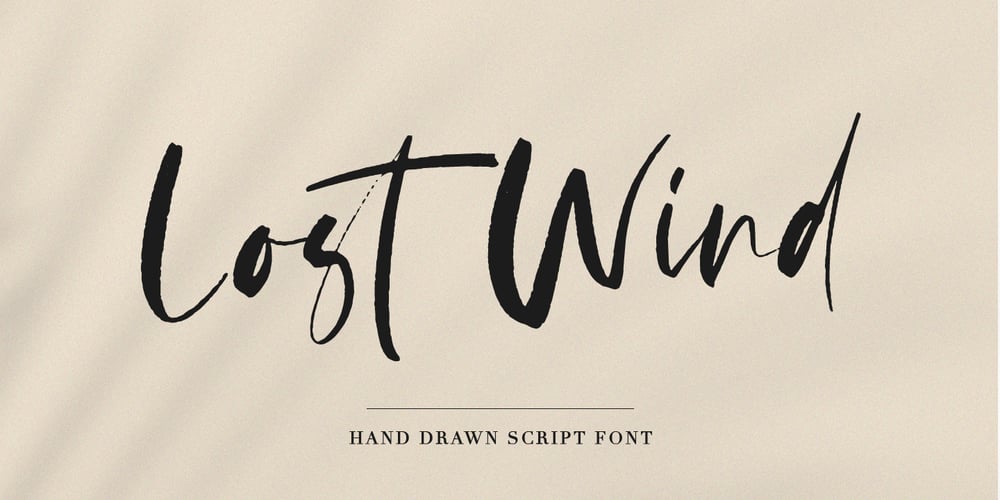
Lost Wind Font Family was designed by Pavel Larin and published by Larin Type Co. Lost Wind contains 1 styles and family package options. Lost Wind – a beautiful and elegant hand drawn font – will emphasize your individuality in any project. This font also contains alternates lowercase and ligatures which gives you the opportunity to diversify your design. You can use this font to create a logo or for your businesses, branding, t-shirts, book covers, stationery, marketing, blogs, magazines, and more.